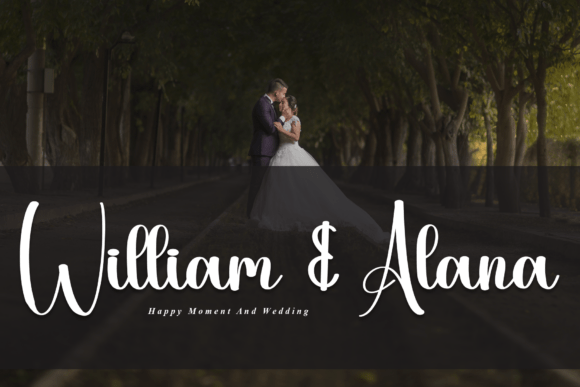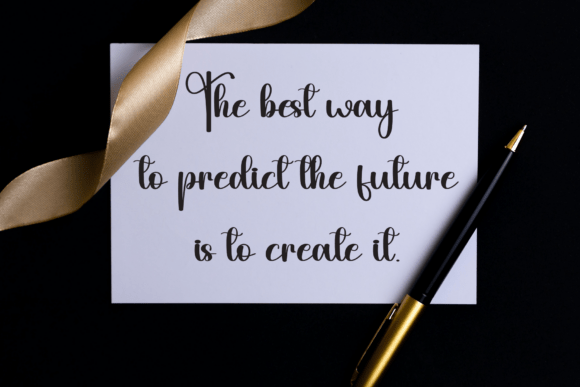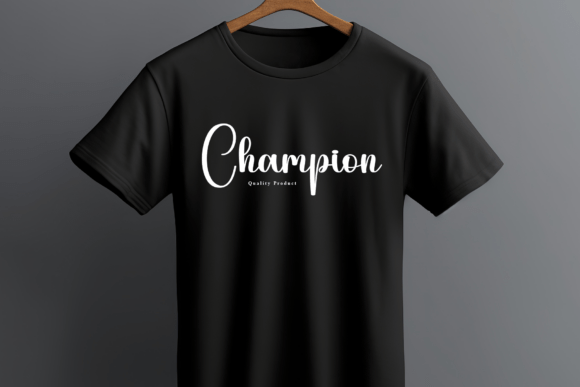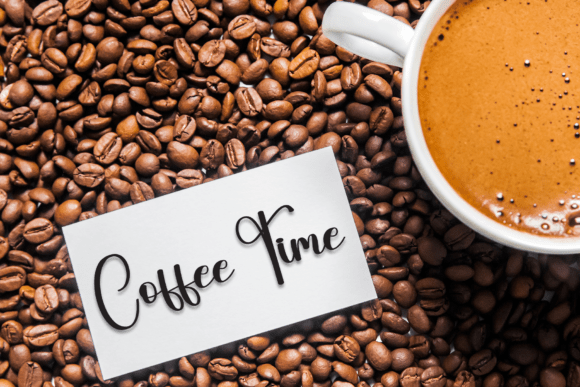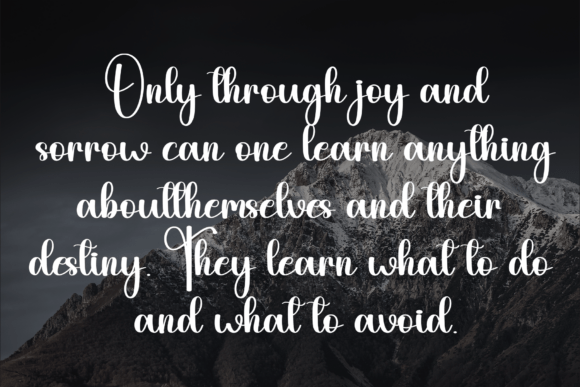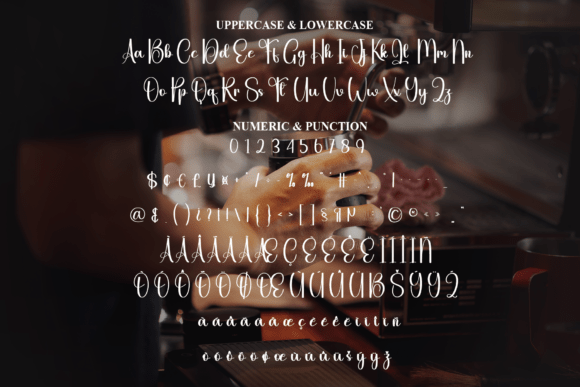
Introducing Barista Font: Elevate Your Designs with Elegance and Charm
In the world of typography, a font can make or break the aesthetic of a design. For those seeking a touch of sophistication and elegance, the Barista Font is an exceptional choice. This stylish handwritten script font is designed to bring a sense of refinement and charm to any project, making it perfect for branding, invitations, stationery, and more.
The Essence of Barista Font
Barista Font is characterized by its fluid, graceful strokes that dance across the page with elegance and poise. The smooth curves and natural flow of this font create a timeless, refined look that is sure to captivate audiences. Whether you’re a designer looking to elevate your branding or a crafter seeking to add a personal touch to your stationery, Barista Font is the perfect choice.
Key Features of Barista Font
- Fluid and Graceful Strokes: The fluid strokes of Barista Font give it a dynamic and elegant feel, perfect for creating a sophisticated look.
- Handwritten Script Style: The handwritten script style of Barista Font adds a personal touch to any design, making it ideal for invitations, stationery, and branding.
- Smooth Curves and Natural Flow: The smooth curves and natural flow of Barista Font create a refined and timeless look that is sure to impress.
- Perfect for Branding and Stationery: Barista Font is designed to add a touch of elegance and sophistication to branding, invitations, stationery, and more.
Uses of Barista Font
Barista Font is a versatile font that can be used in a variety of design applications. Here are some of the most popular uses of this elegant font:
- Branding: Use Barista Font to create a sophisticated and elegant brand identity that sets you apart from the competition.
- Invitations: Add a personal touch to your invitations with Barista Font, perfect for weddings, parties, and other special occasions.
- Stationery: Elevate your stationery with Barista Font, creating a refined and elegant look that is sure to impress.
- Packaging: Use Barista Font to add a touch of sophistication to your packaging, perfect for luxury brands and high-end products.
Tips for Using Barista Font
To get the most out of Barista Font, here are some tips to keep in mind:
- Pair with Neutral Backgrounds: Pair Barista Font with neutral backgrounds to create a clean and elegant look.
- Use for Headings and Titles: Use Barista Font for headings and titles to add a touch of sophistication and elegance.
- Keep it Simple: Keep your design simple and elegant to let Barista Font shine.
In conclusion, Barista Font is a stylish handwritten script font that exudes elegance and charm. With its fluid, graceful strokes and smooth curves, it’s perfect for adding a personal and sophisticated touch to any design. Whether you’re a designer or crafter, Barista Font is an exceptional choice for branding, invitations, stationery, and more. So why settle for ordinary fonts when you can elevate your designs with the elegance and charm of Barista Font?